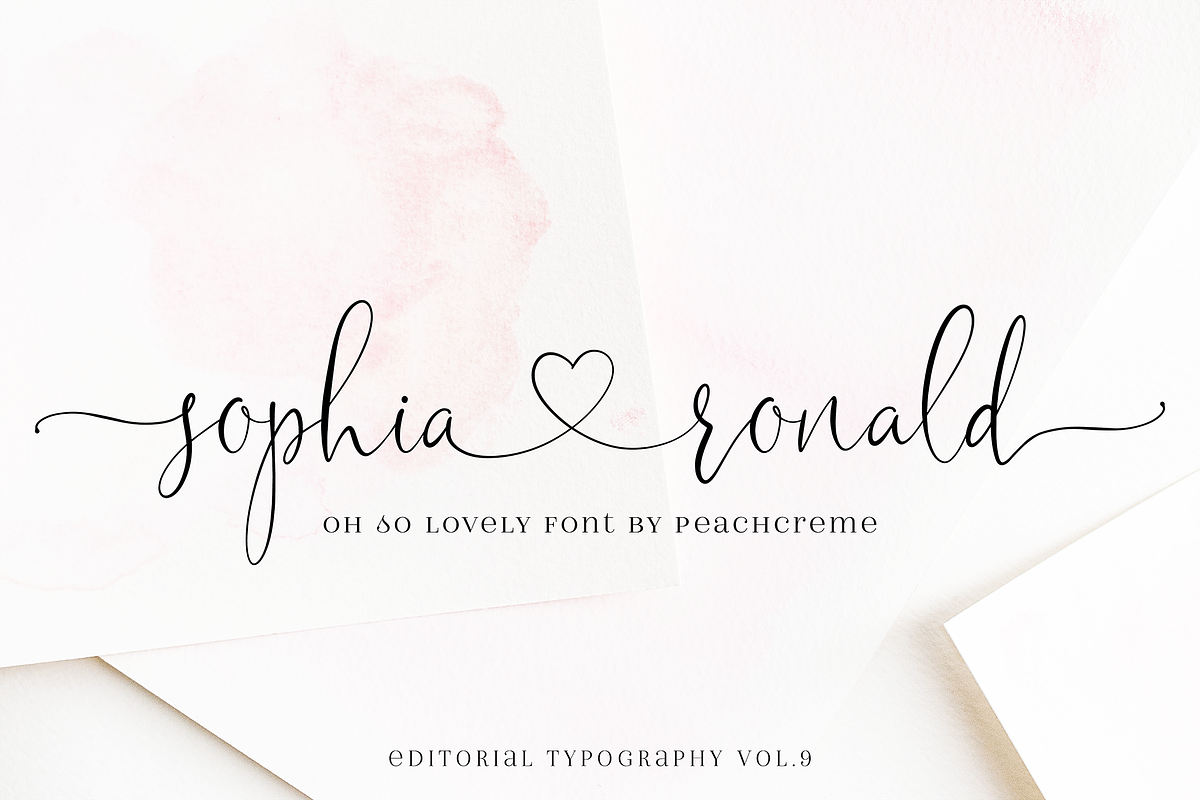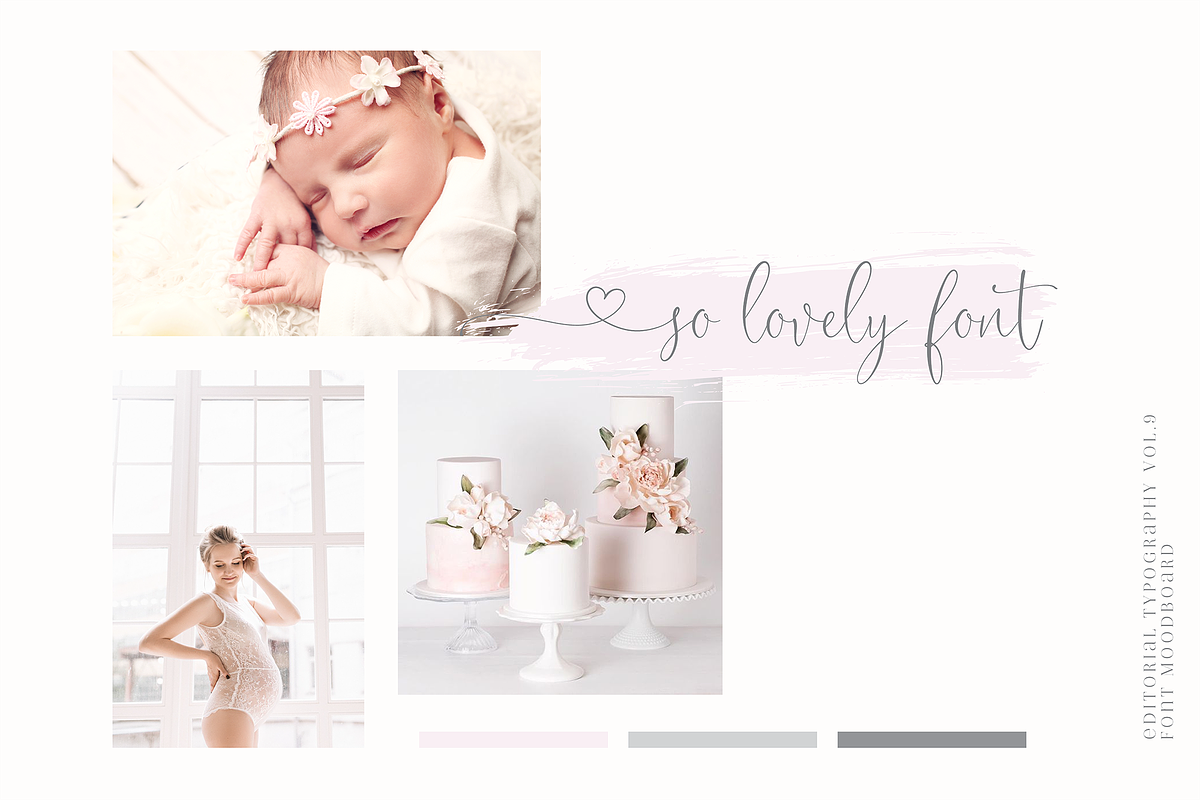
Sophia Ronald is a crème de la crème modern calligraphy font with a sophisticated, handwritten flow. Overflowing with hearts and elegant glyphs, it’s the perfect choice for branding, wedding invitations, greeting cards, and more.
This font includes a full set of uppercase and lowercase letters, multilingual support, numerals, punctuation, and delicate ligatures.
With its smooth texture, Sophia Ronald is perfect for various printing techniques, including embroidery, laser-cut designs, gold foil, and more.
- Short lowercase beginning and ending swashes
- Lowercase ending heart swashes for seamless word connections (ideal for invitations and monograms)
- Long lowercase beginning and ending heart swashes for added elegance